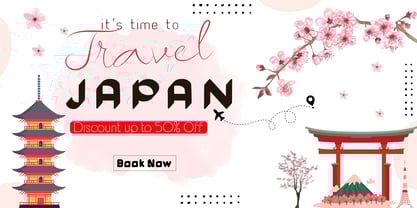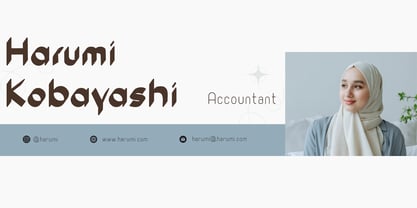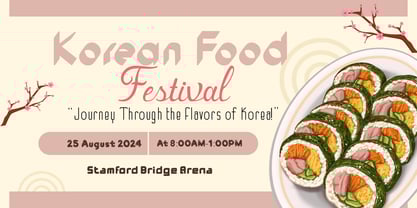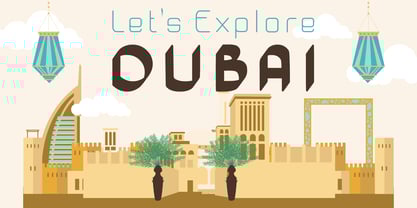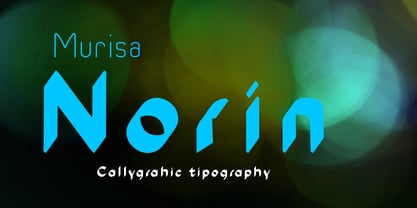
Murisa Norin
by Murisa Studio
The Murisa Norin Font Family was designed by Lili Sadili and published by Murisa Studio. Murisa Norin contains 2 styles and family package options. More about this family
Hello everyone, we are very happy that today we can present our newest font. Murisa Norin. This font is inspired by the frequently used calligraphy brush shape. This makes us challenged again to create similar fonts which are of course different and unique in shape. You can use this font in all your creative designs. Logos, banners, wallpapers and so on. Please download it directly and have a nice day. Thank You.
Designers: Lili Sadili
Foundry: Murisa Studio